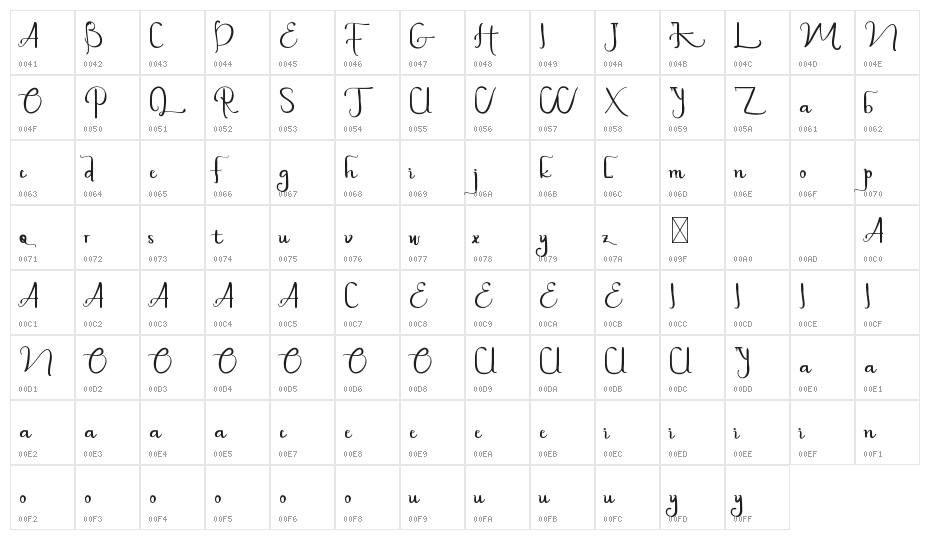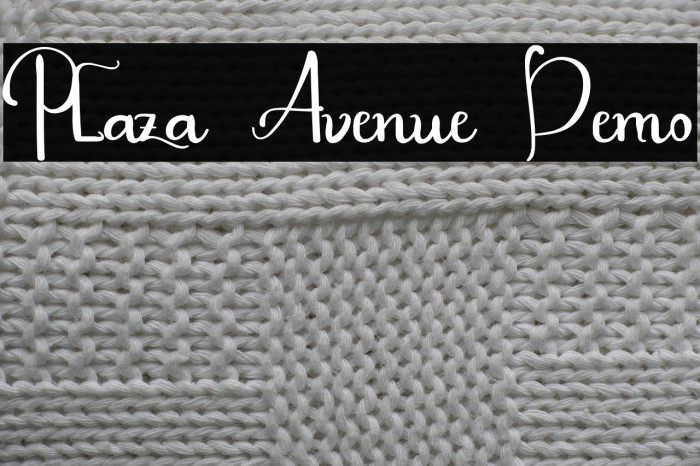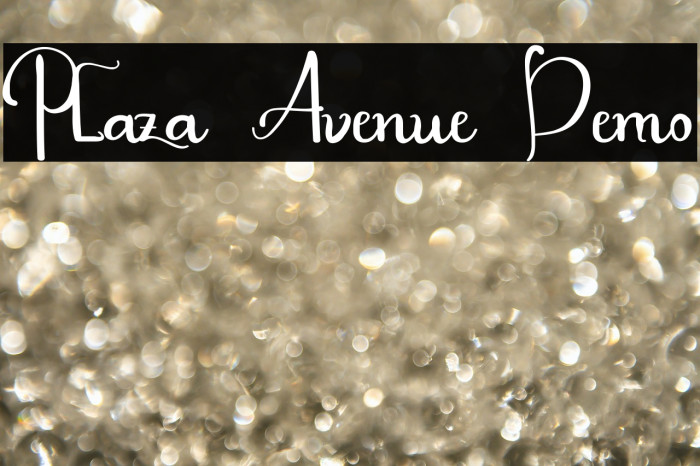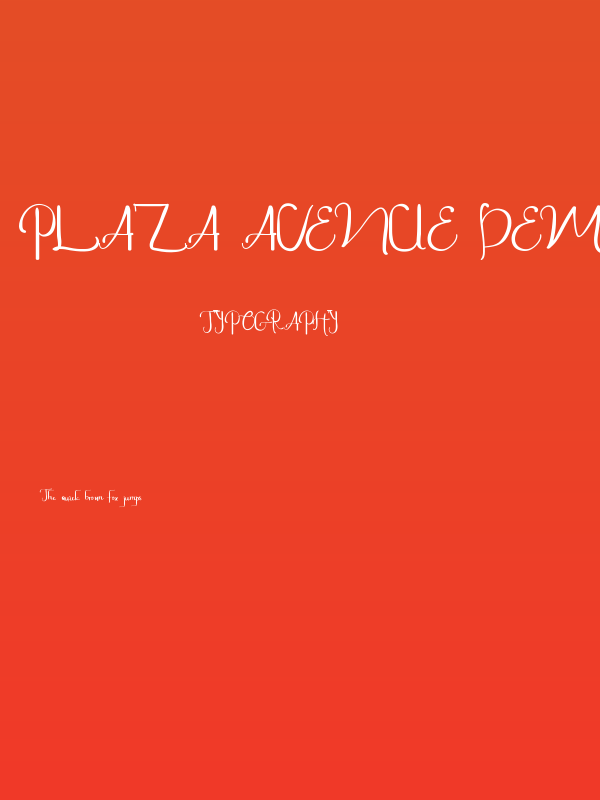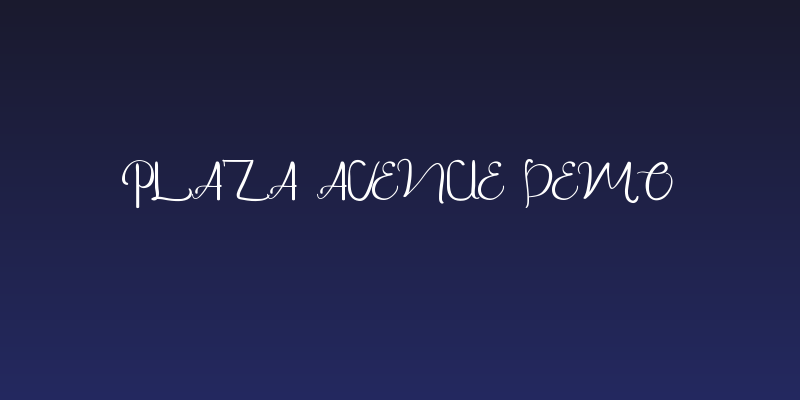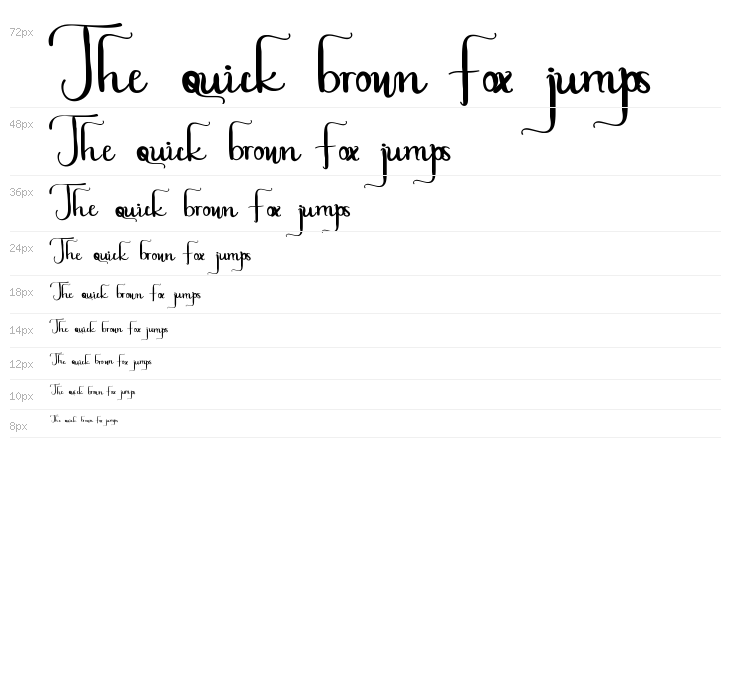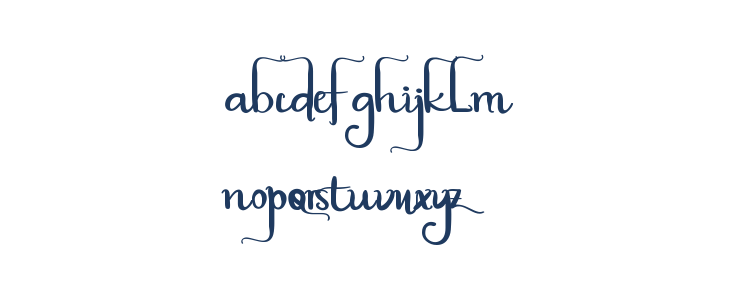
Plaza Avenue Demo Font
Plaza Avenue Demo Description
This font is an elegant and decorative script style with a unique flair. The uppercase letters exhibit a sophisticated, flowing design with extended strokes and loops that add a touch of whimsy and creativity. The lowercase letters maintain a consistent style, with smooth curves and a slightly playful appearance. The numerals and special characters follow the same decorative theme, ensuring a cohesive look across all characters. This font is perfect for projects that require a touch of elegance and artistic expression, such as invitations, greeting cards, or branding materials. Its distinctive style makes it stand out, while still being legible and versatile.
| Use Case | Headlines, Logos, Artistic projects |
| Proposed Projects | Ideal for invitations, greeting cards, branding, and artistic projects. |